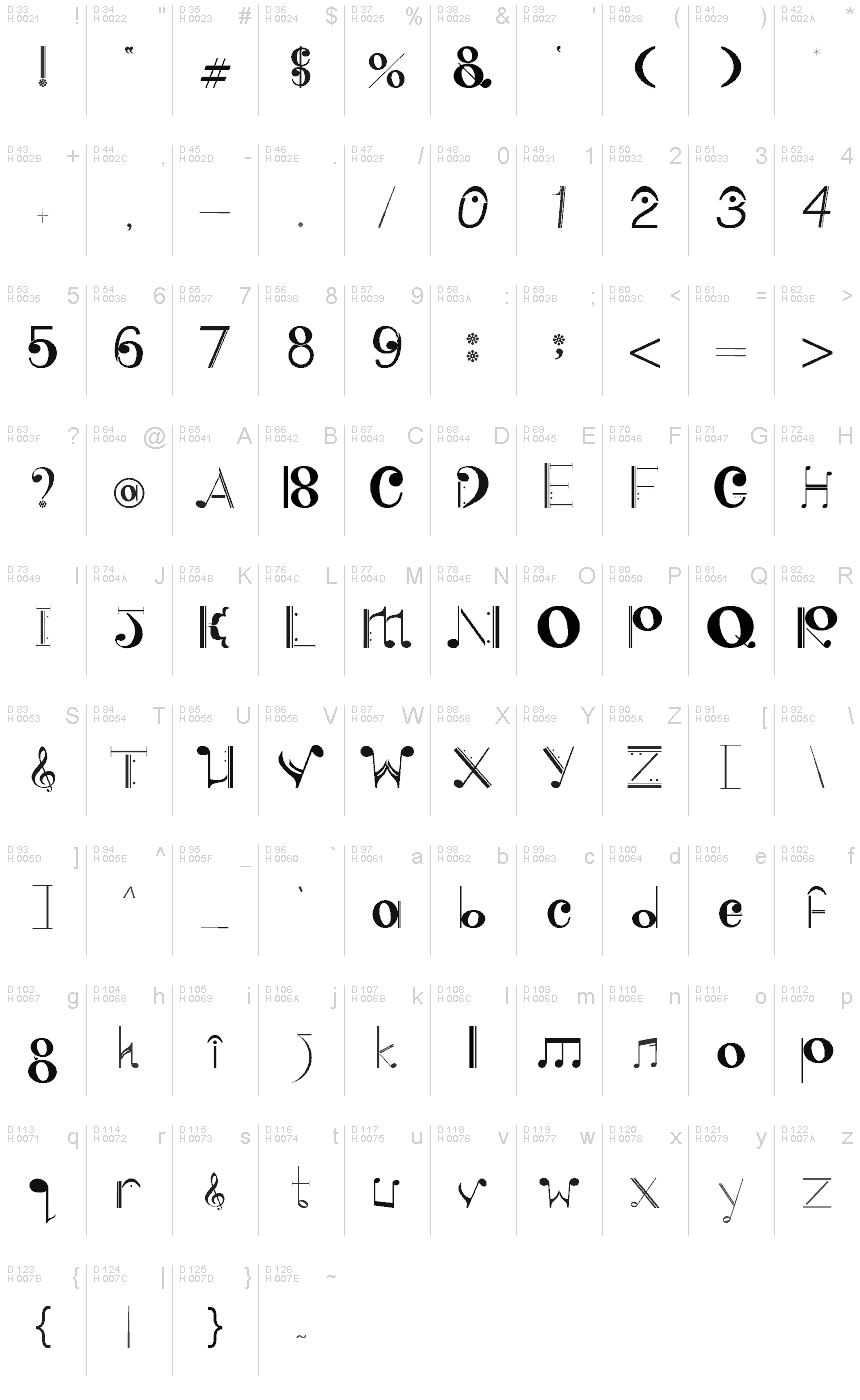
Sing With Me Regular
Since I was a kid, whenever I see alphabets lining up, I cant help myself to sing them out loud in my mind as I am reading them. For an international student like me who are learning English as their second language, the best way to memorize the spellings is to create my own little melodies of the new words. And as I am grown up, I found out that I could never read lyrics, but sing them out loud (in my mind maybe?) Those childhood memories inspire me to design my own font in my typography class. Why not actually design a font what will make people cant help singing along with it?
Oo Yi Lo